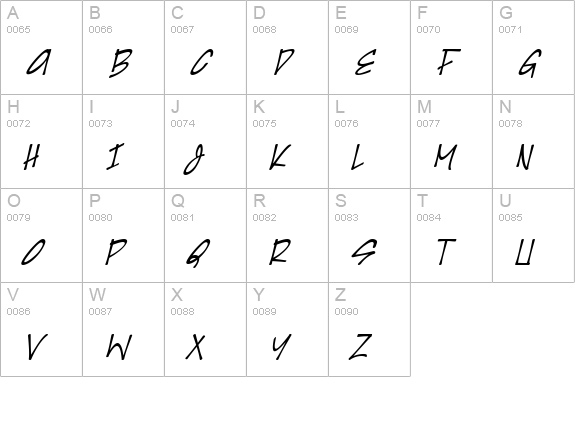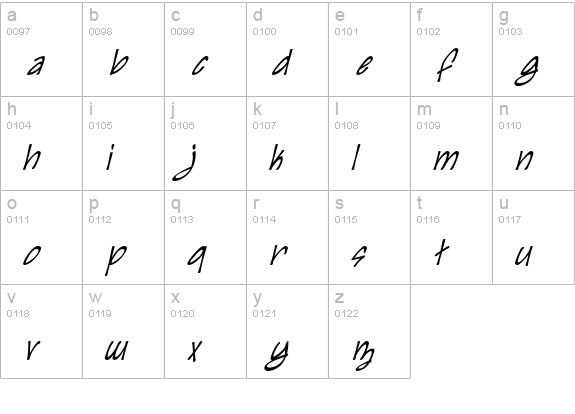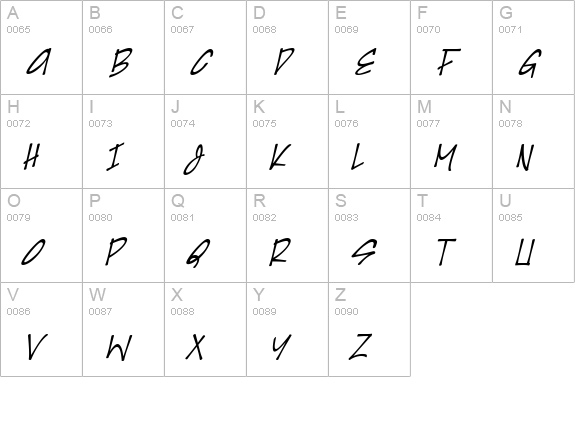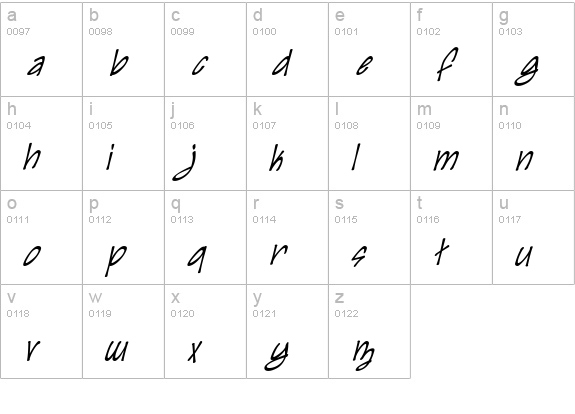
Irezumi Italic Font Details
Irezumi Italic is a distinctive, italic variant in the Irezumi typeface family \xE2\x80\x94 well suited to design and typography projects.
Irezumi Italic font is a beautiful and artistic typeface that exudes elegance and sophistication. Its delicate strokes and graceful curves make it the perfect choice for any design project that requires a touch of refinement. This unique font is inspired by the traditional Japanese art of tattooing, known as Irezumi. It captures the essence of this ancient practice with its intricate and intricate designs, which are skillfully translated into a digital format. Each letter is meticulously crafted to reflect the precision and artistry found in Irezumi tattoos. Irezumi Italic font stands out with its slanted and italicized style, adding a sense of movement and dynamism to your text. It effortlessly blends tradition with modernity, making it a versatile choice for various applications, including branding, logos, packaging, invitations, and more. One of the best things about Irezumi Italic font is that it is free. Yes, you read that right! This exceptional font is freely available to download at FontsMarket.com. You can easily access this font and incorporate its unique charm into your designs without any cost. It's a fantastic opportunity to enhance your creative projects with a high-quality, visually captivating typeface. Whether you're a professional designer or a typography enthusiast, Irezumi Italic font is a must-have in your font collection. With its free availability and remarkable design, it is a font that will undoubtedly elevate your creative endeavors to new heights. Explore the world of Irezumi Italic font and bring a touch of elegance and artistry to your designs.